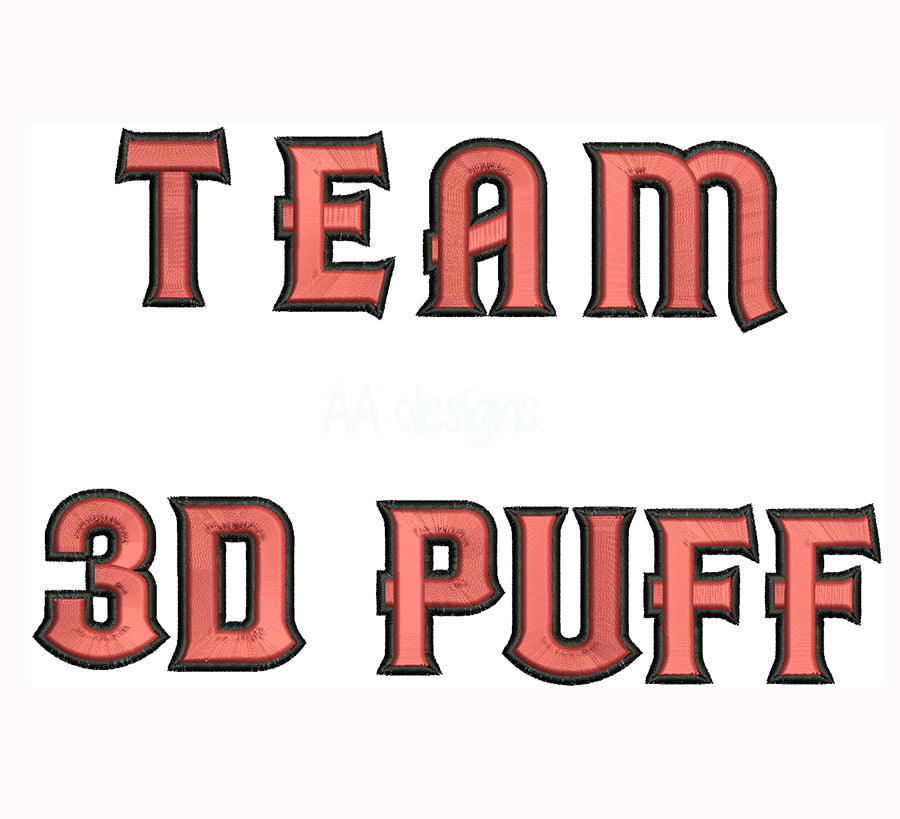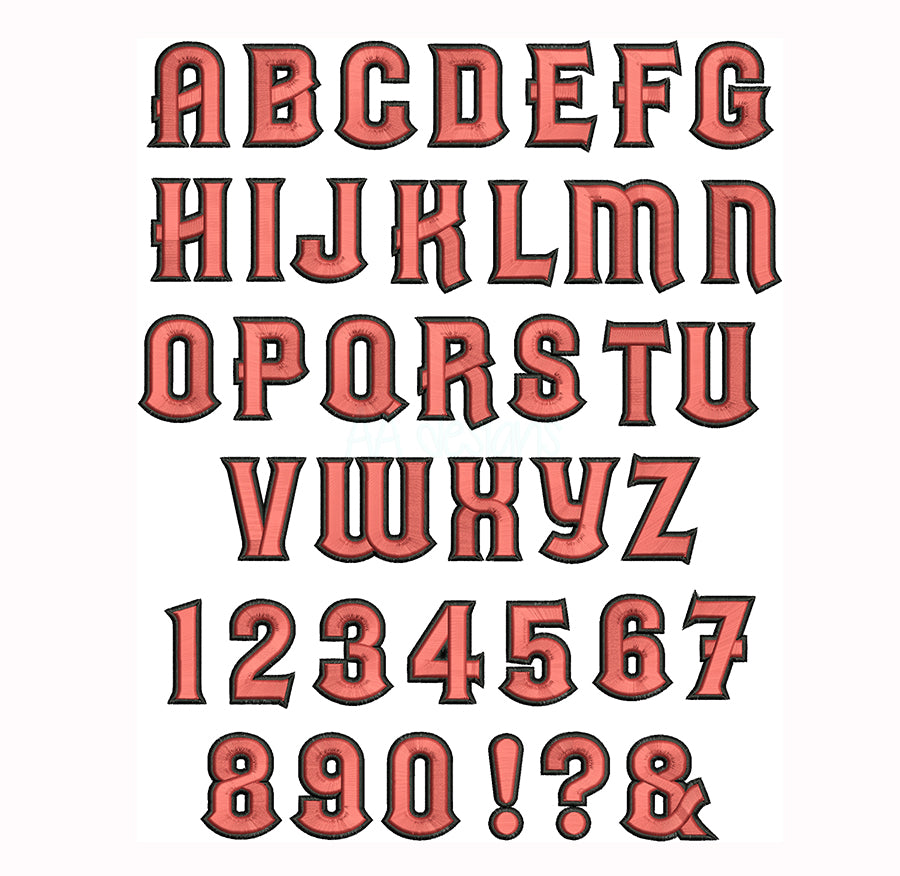
Team 3D Puff Embroidery Font. Embroidery font in 3D puff foam.
Gear up your squad with the Team 3D Puff Embroidery Font — a bold, athletic machine embroidery font engineered specifically for 3D puff foam embroidery and built to make team names, numbers, and logos stand out on any uniform or gear. 🏆🧵🔥
With strong, sporty letterforms that rise up in impressive dimension when stitched over puff foam, this font is the go-to choice for sports teams, school squads, club apparel, and custom fan gear. Whether it's on a snapback, a jersey, or a duffel bag — your team will look like champions.
- Includes full alphabet (A–Z, a–z) and numbers